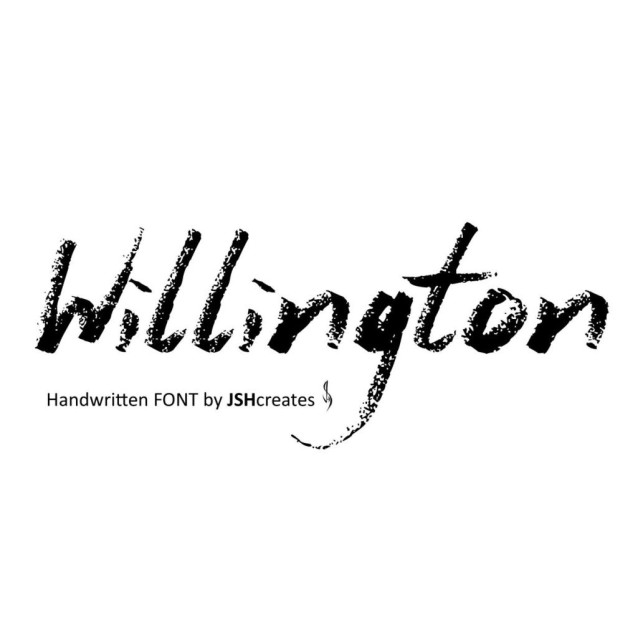
Willington Font
Willington Font – Handwritten font. Perfect for advertising and display purposes, including banners, book covers, shirts, posters, logos and much more! Font includes all upper and lowercase letters, numbers, characters and punctuation.